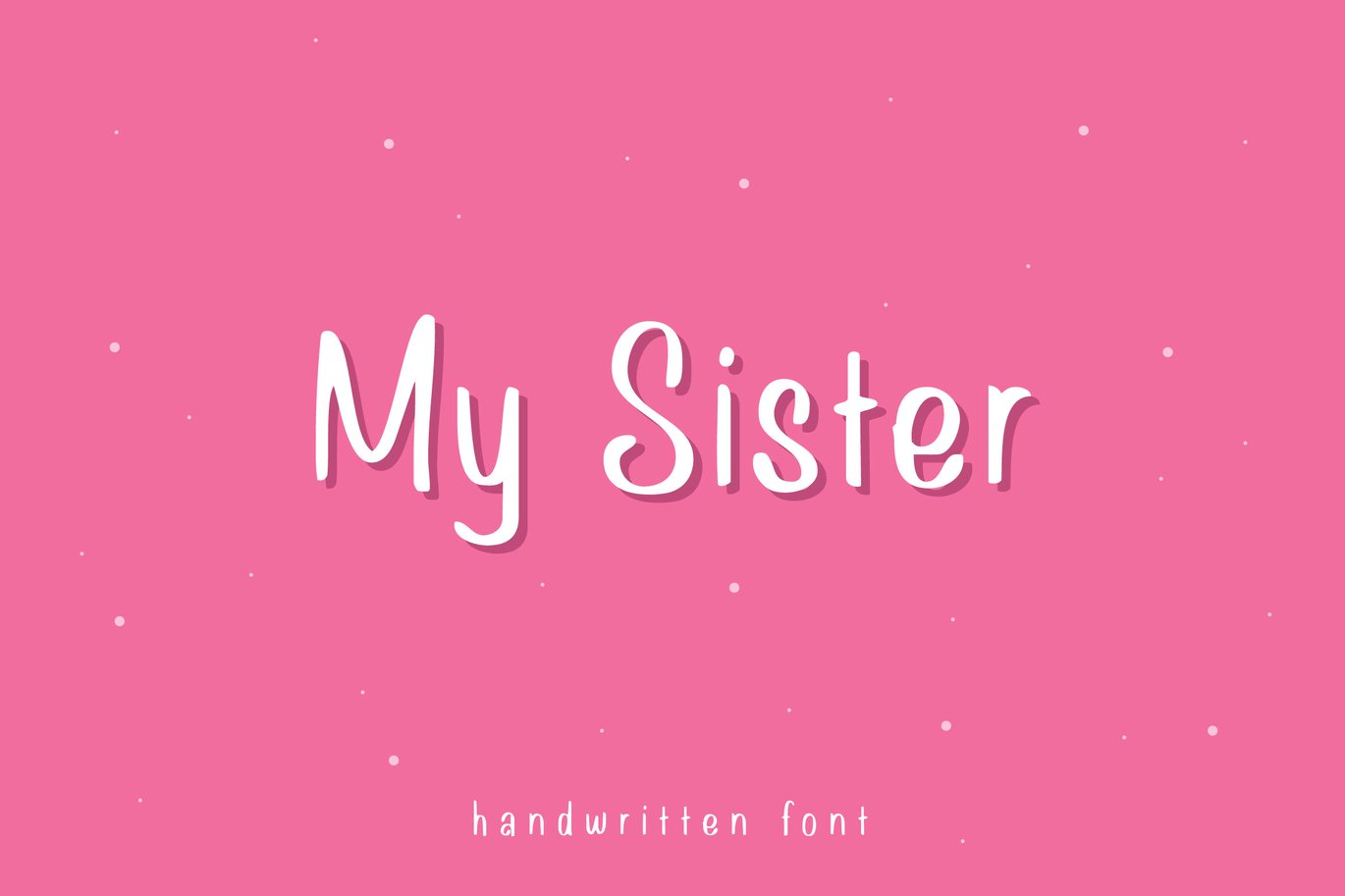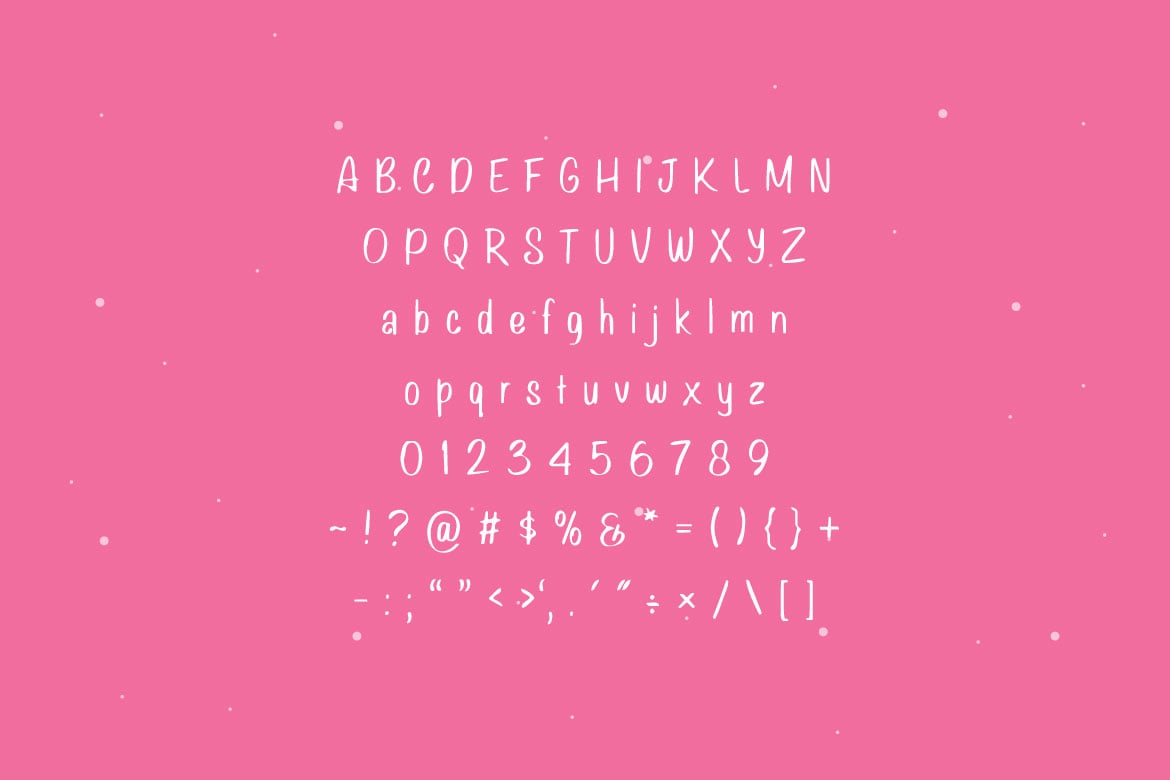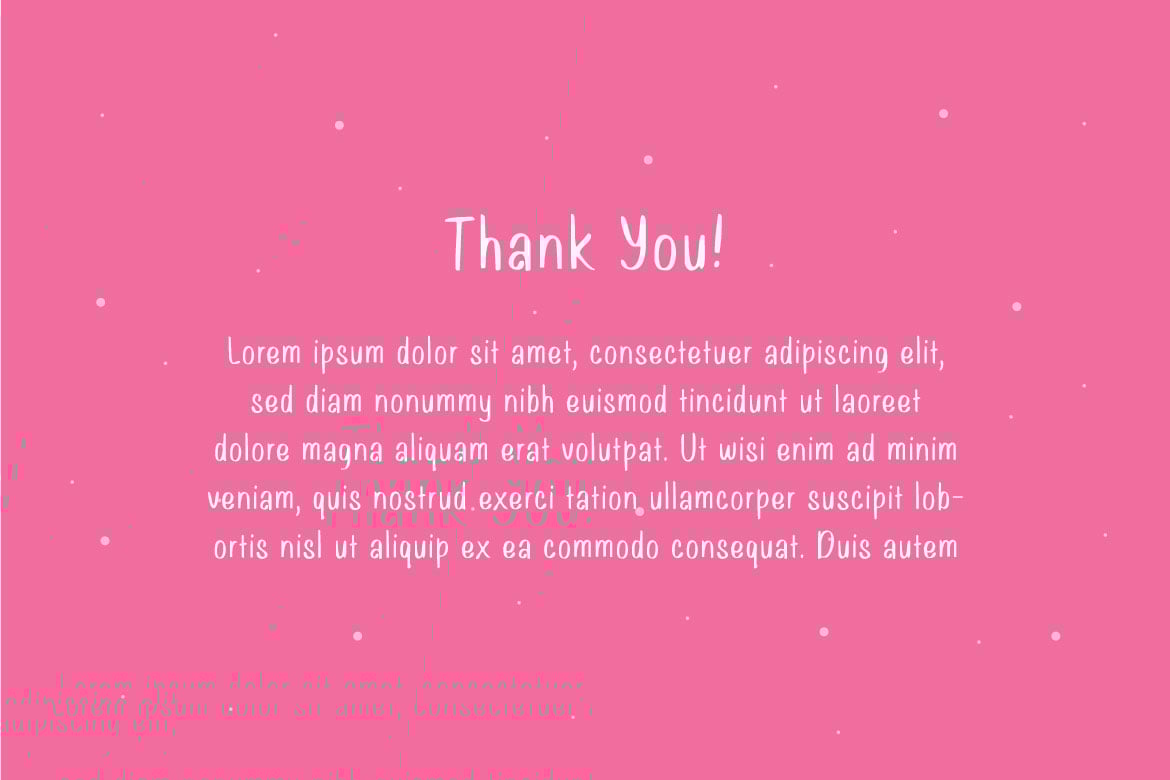
My Sister – Girly Handwritten Font
MY SISTER is a clean yet cute handwritten font. This font brings girly ambience in each word.
My Sister can be used in any works such as book cover, music cover, children book, poster, advertisement, social media content, logo and many more.